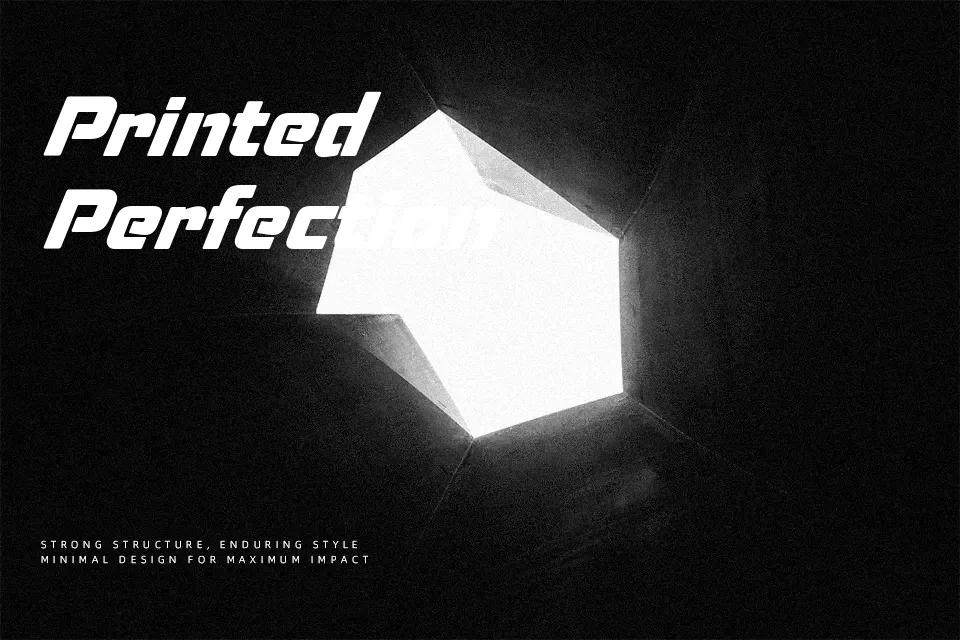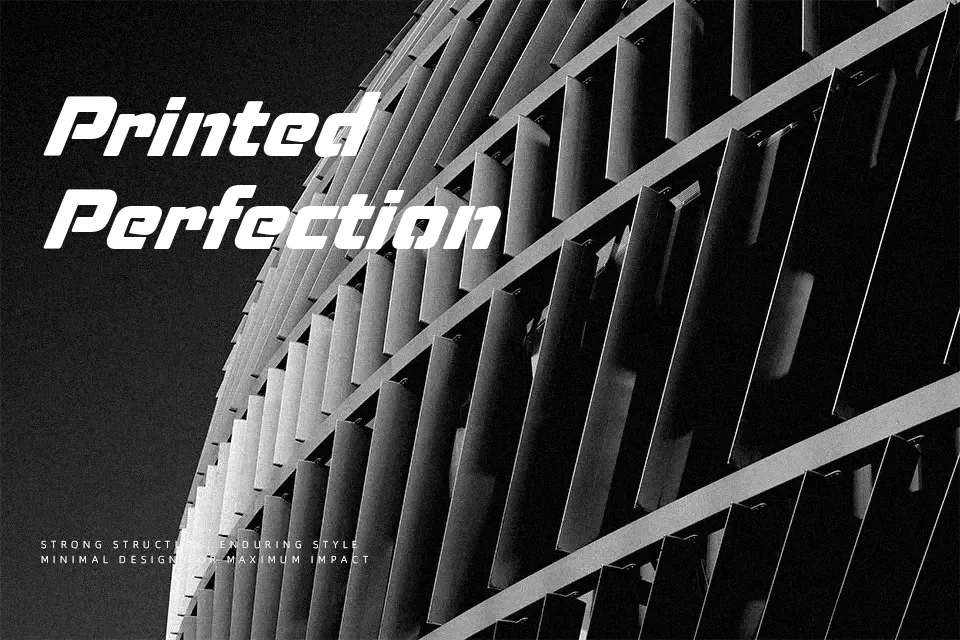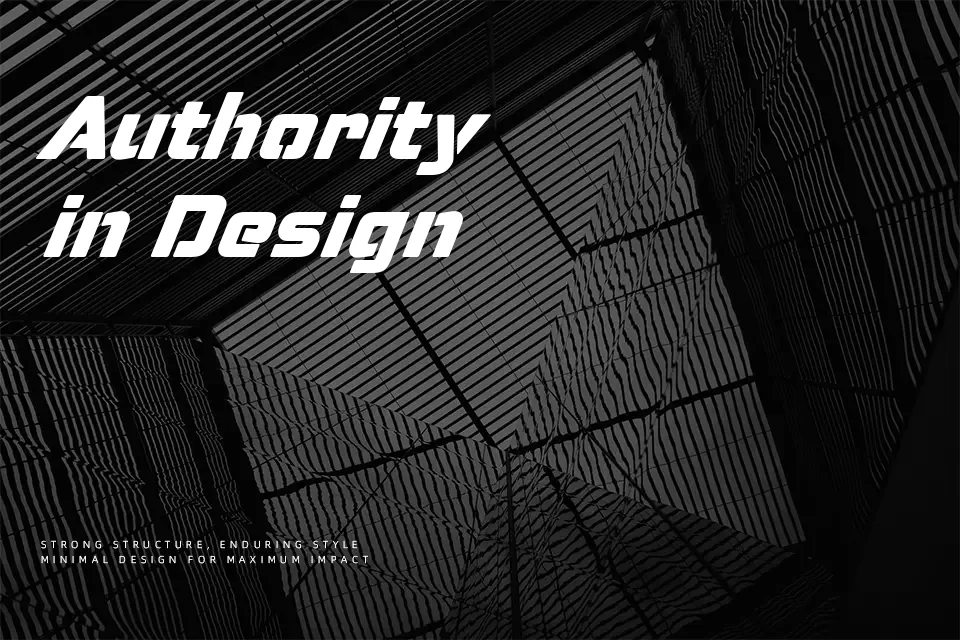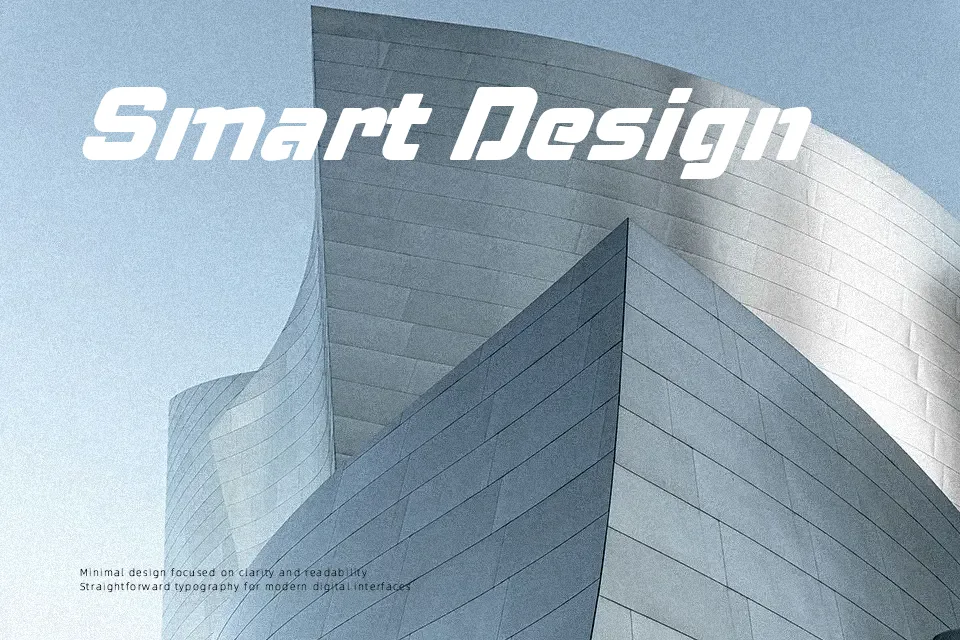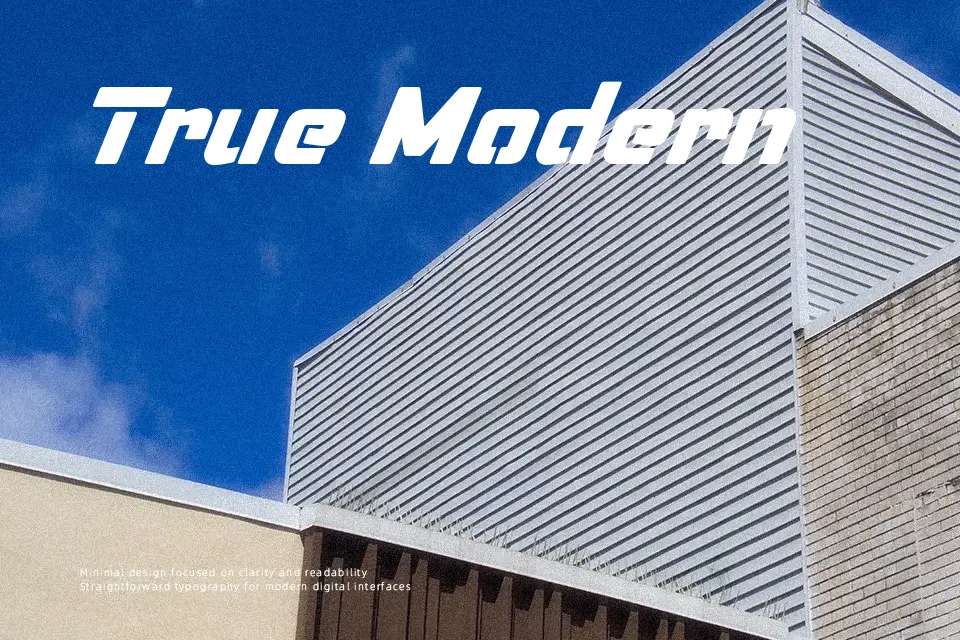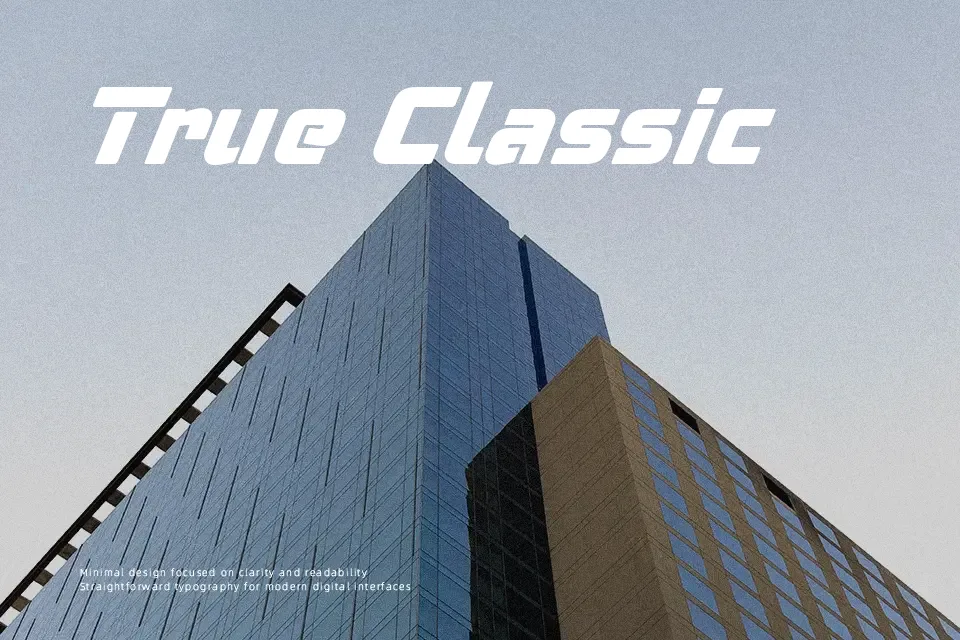
Pervitina Dex Font
Pervitina Dex Font works best in large display settings, where its heavy slanted forms and rounded stencil breaks remain clear. The letterforms use broad, low-contrast strokes, compact proportions, and a steady forward rhythm that gives short words a forceful appearance. Spacing appears controlled enough for headlines and stacked compositions, while the cut sections add character without overwhelming the basic shapes. Numerals follow the same weight and angled construction. It is a practical choice for posters, apparel graphics, labels, and identity marks needing a bold industrial tone. The dense, stylized construction becomes less comfortable in small copy or extended reading.
Best For: sports event posters,apparel graphics,product labels,logo headlines